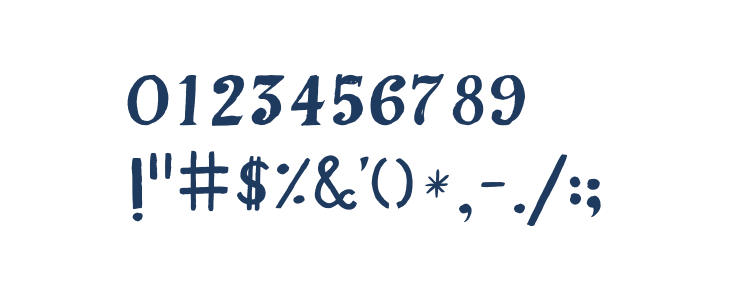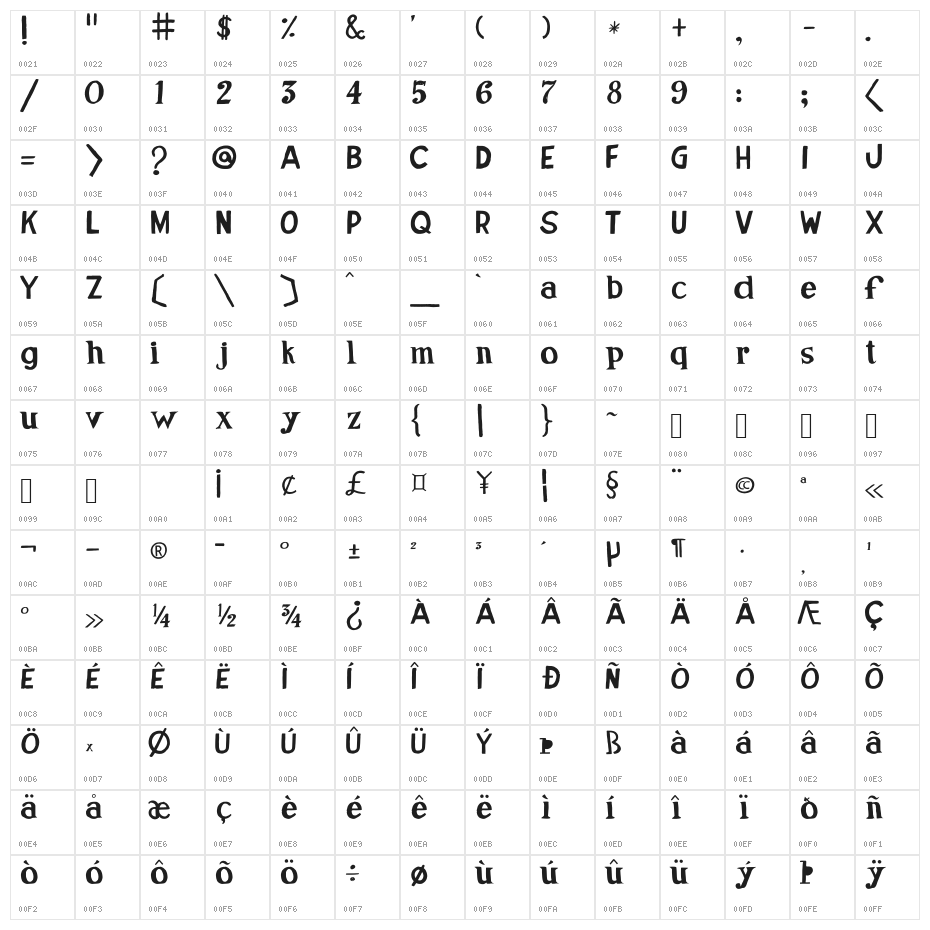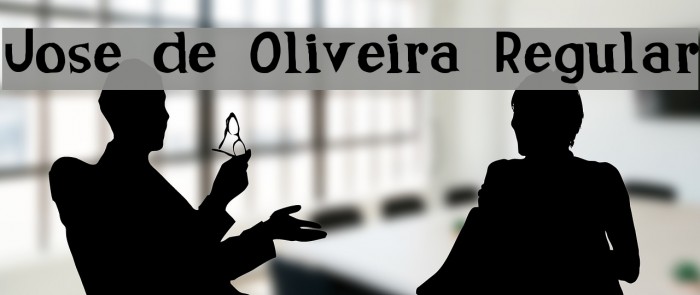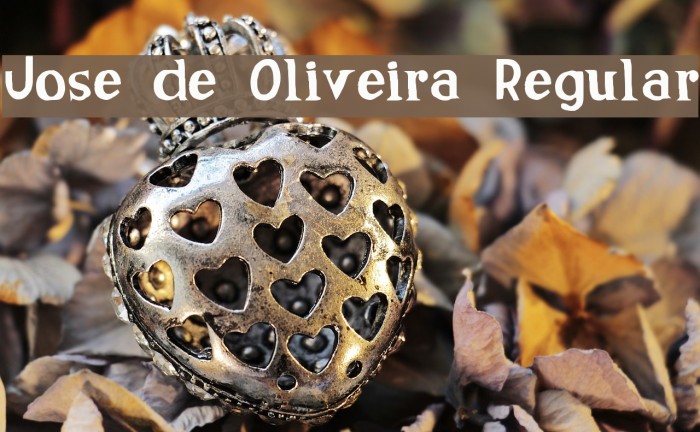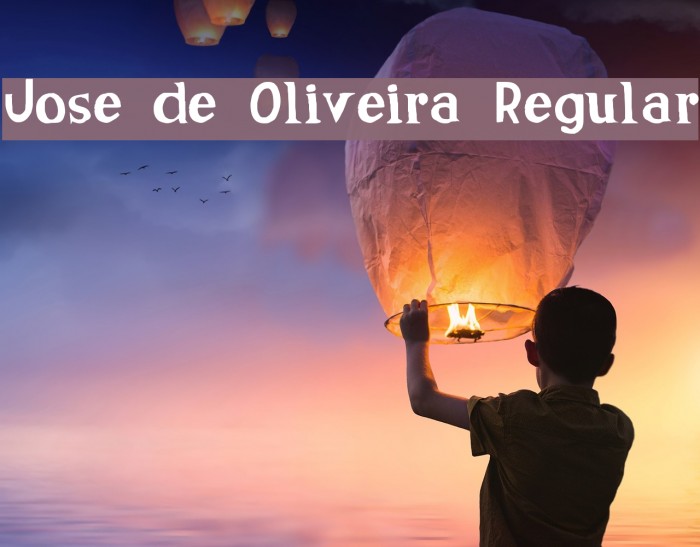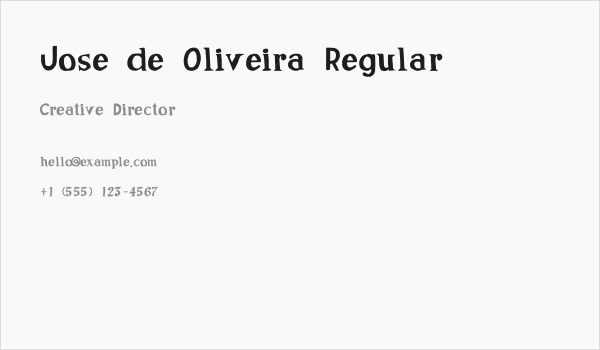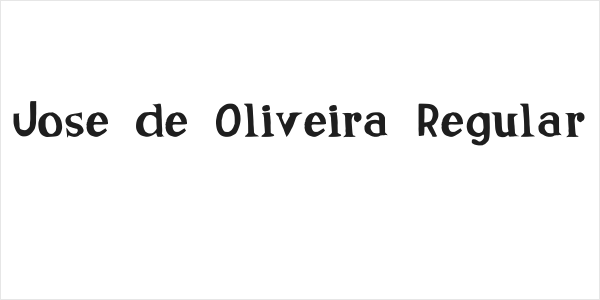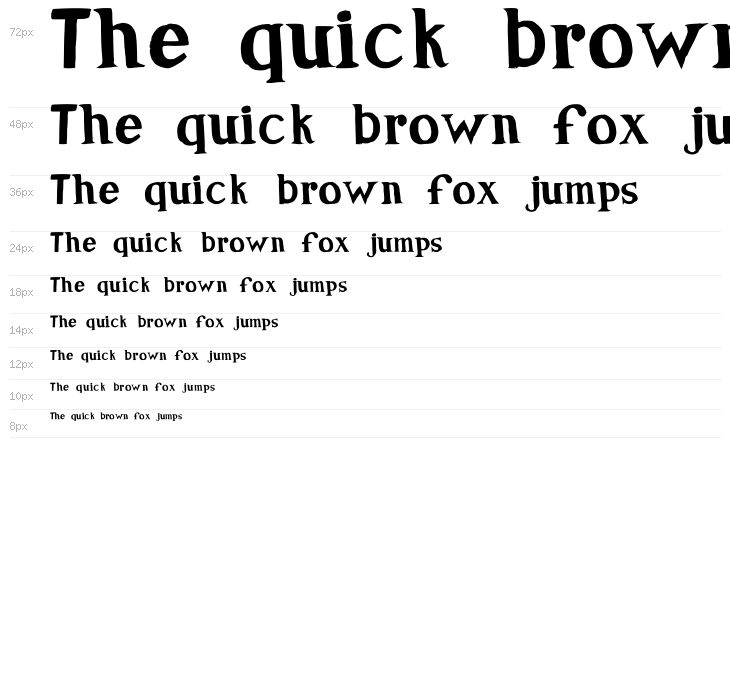
Jose de Oliveira Regular Font
Jose de Oliveira Regular Description
This font features a bold and dynamic style with a hand-drawn appearance. The characters exhibit a slightly irregular and organic form, giving it a unique and artistic flair. The uppercase letters are bold and prominent, while the lowercase letters maintain a consistent flow with subtle variations in stroke width. The numerals are distinct and easily readable, complementing the overall design. Special characters are creatively integrated, maintaining the font's playful and expressive nature. This font's distinctive style makes it suitable for creative and artistic projects.
| Overall Style | Artistic, Playful |
| Proposed Projects | Ideal for posters, artistic projects, branding, and creative designs. |